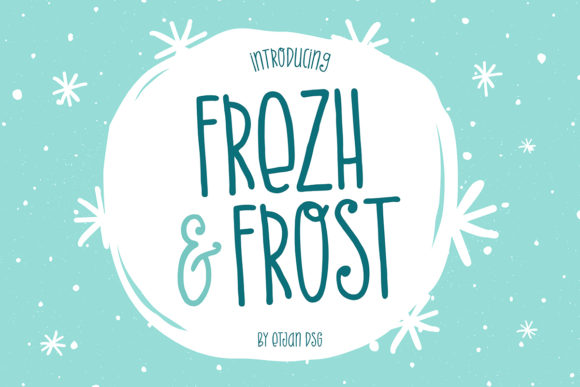
Journey into the realm of Frezh & Frost, a display font family that dances across your designs with a natural and thin lettered charm. Created by the renowned Etjan Dsg, this font is not just a collection of characters; it's an expression of creativity, a celebration of life's little moments.
Immerse yourself in the world of Frezh & Frost, where simplicity meets visual impact. Its delicate strokes and organic flow will instantly captivate your audience, leaving them spellbound by the beauty of your designs. With Frezh & Frost, your creations will radiate a charm that's both timeless and utterly captivating.
Unleash your imagination and let Frezh & Frost become your muse. Whether you're crafting invitations, greeting cards, posters, or social media posts, this font will elevate your designs to new heights of artistry. Its playful yet elegant personality will add a touch of whimsy and wonder to any project you undertake.
Frezh & Frost is more than just a font; it's an experience. Each letterform dances across the page like a graceful ballerina, telling a story of joy, innocence, and boundless creativity. Its natural flow mimics the effortless beauty of handwritten notes, evoking a sense of nostalgia and warmth.
Dive into the world of Frezh & Frost and let your designs blossom with a new sense of vibrancy and charm. This font is the perfect companion for projects that speak to the heart, that evoke memories, and that capture the essence of life's special moments.
Embrace Frezh & Frost today and embark on a creative journey that will leave you breathless. Its enchanting beauty will transform your designs into captivating masterpieces, leaving an everlasting impression on all who behold them.